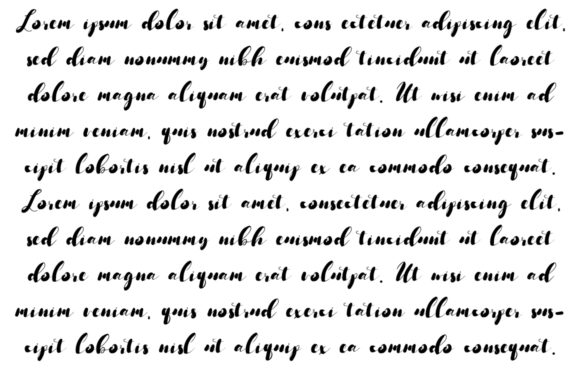
Fusewe Font
About Fusewe Font
Fusewe is a fun and adorable handwritten font with a unique and bold charm. It will put an authentic charm on any design idea.